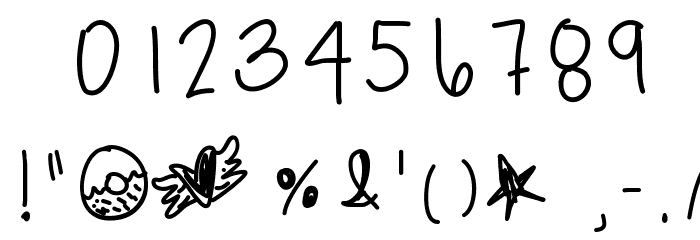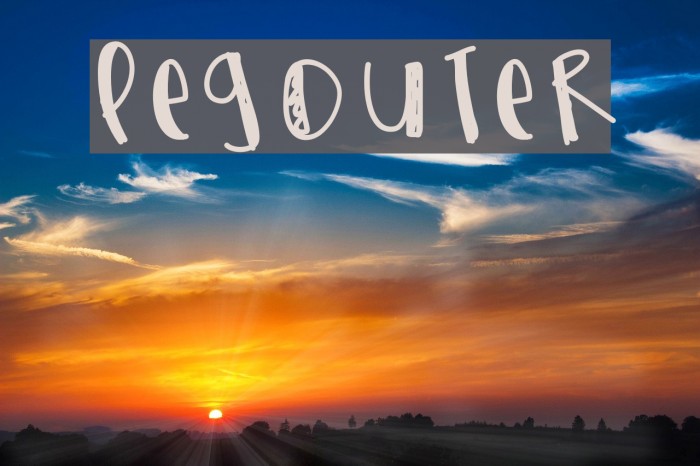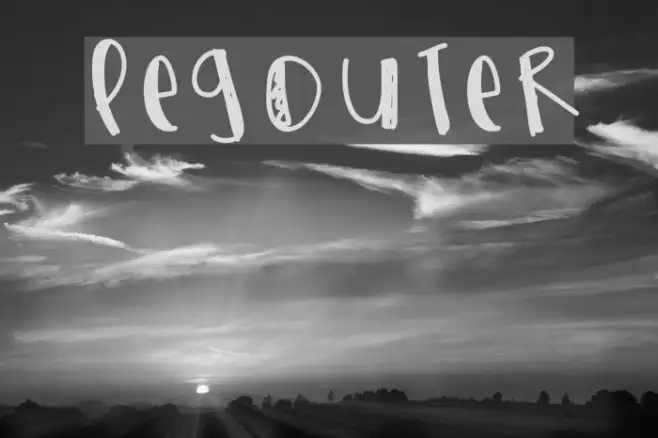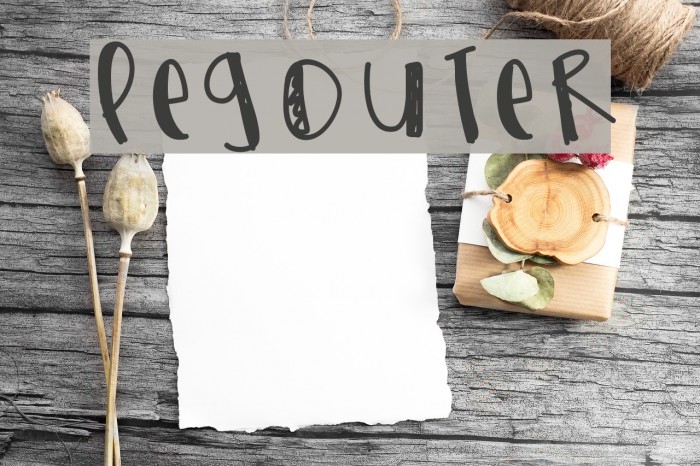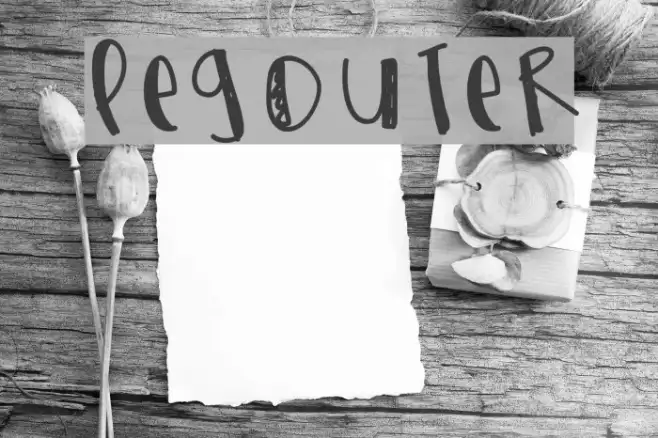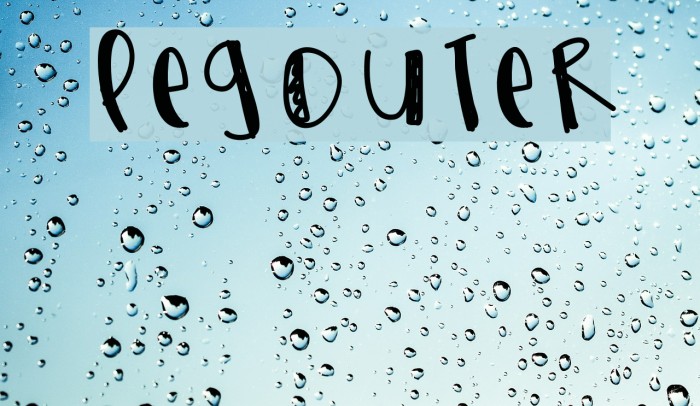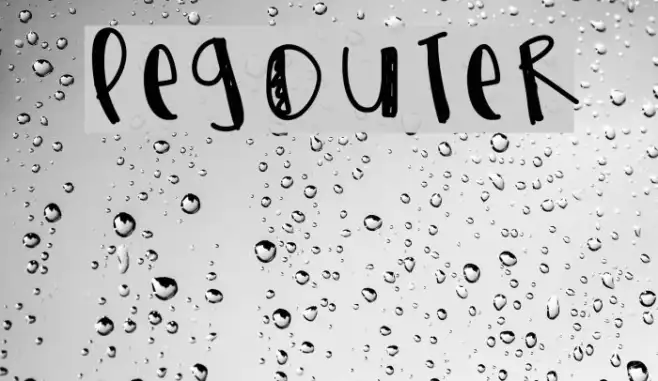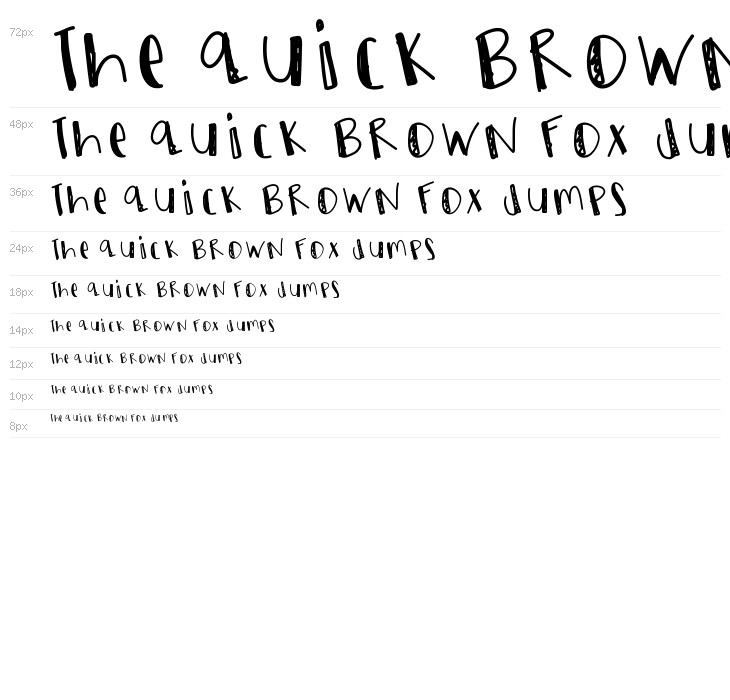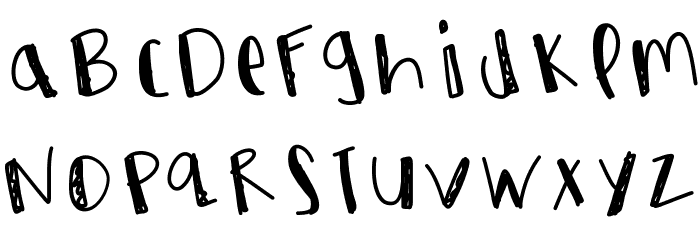
LeGouter Font
LeGouter Description
This playful and whimsical font features a handwritten style with a casual and informal appearance. The letters are slightly irregular, giving it a charming and approachable feel. The strokes are bold and consistent, with a slight tilt that adds to its dynamic nature. The font includes both uppercase and lowercase letters, numbers, and a variety of special characters, making it versatile for different uses. Its unique style is perfect for projects that require a personal touch or a fun, creative vibe.
| Proposed Projects | Ideal for children's books, greeting cards, playful branding, and creative social media graphics. |